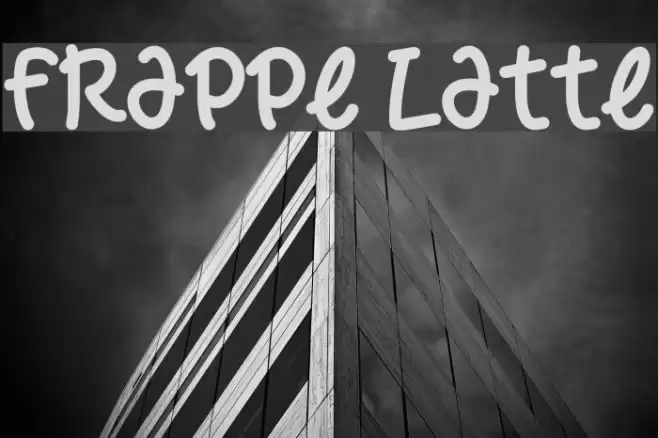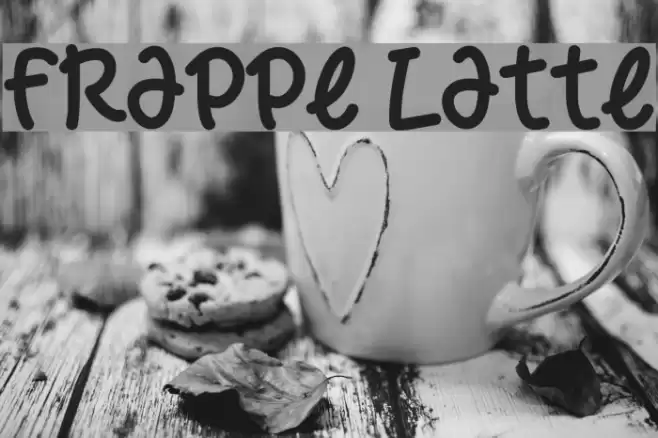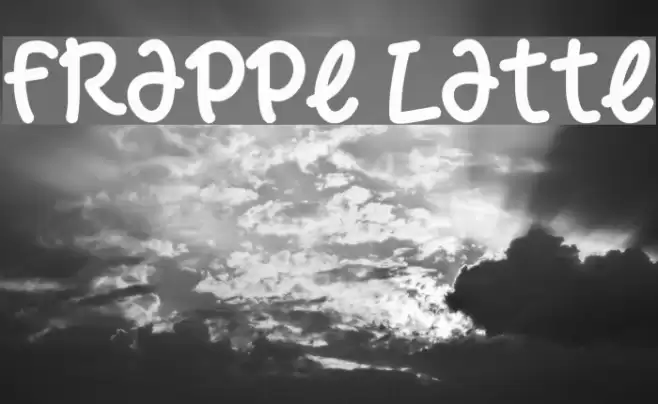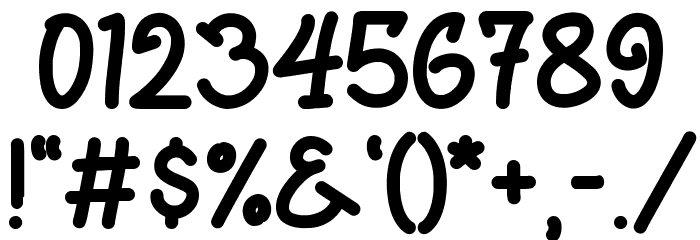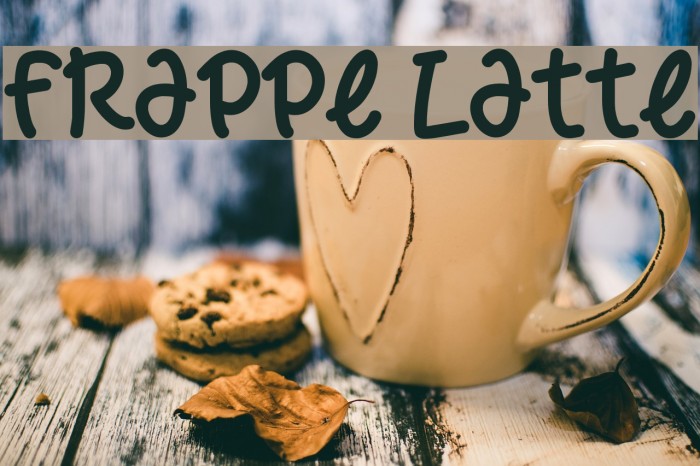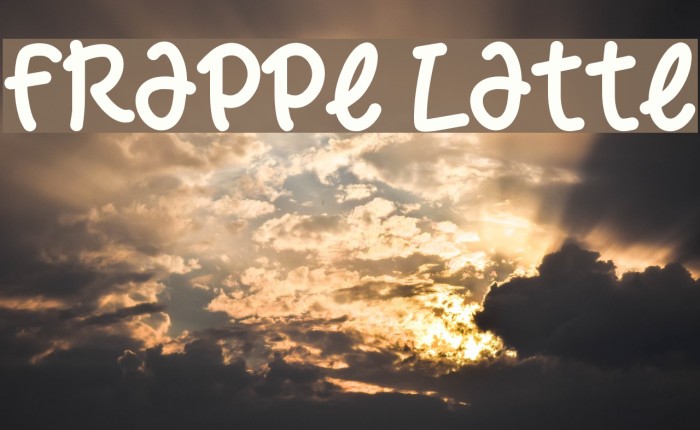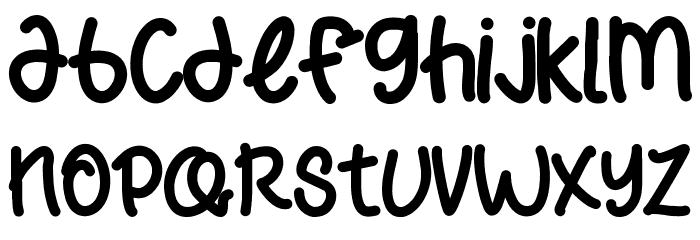
Frappe Latte Font
Frappe Latte Description
This font features a playful and energetic handwritten style with bold, rounded strokes. The characters are slightly slanted, giving a dynamic and informal appearance. The uppercase and lowercase letters maintain a consistent flow, with a whimsical touch that adds personality. The numbers and special characters are equally bold and expressive, making them stand out. This font is perfect for projects that require a fun and approachable aesthetic, such as children's books, playful branding, or casual invitations.
A bold, playful handwritten font with rounded strokes and a dynamic slant from Uncategorized fonts.
- Proposed Projects: Ideal for children's books, playful branding, casual invitations, and creative posters.
- Overall Style: Playful